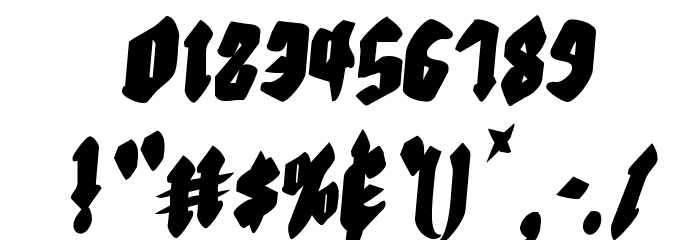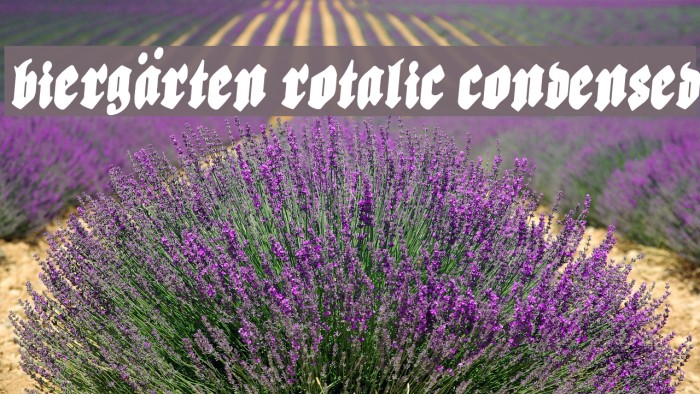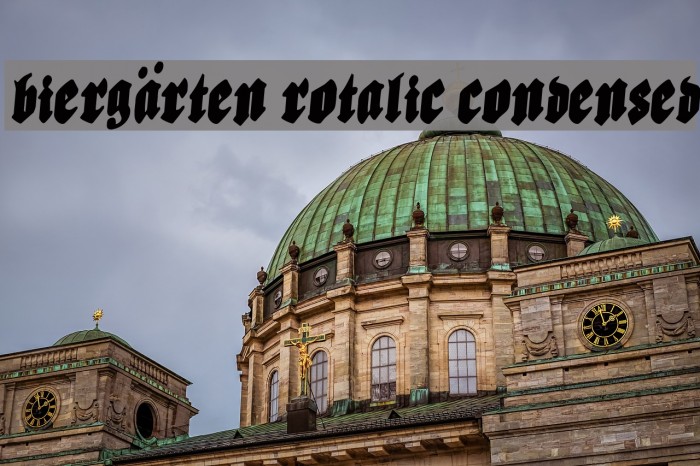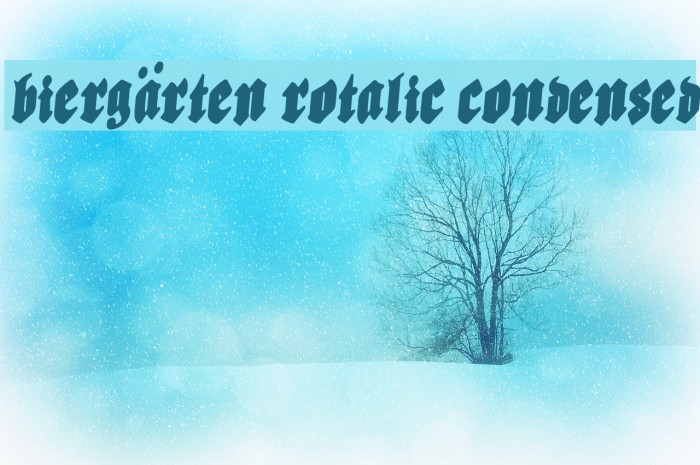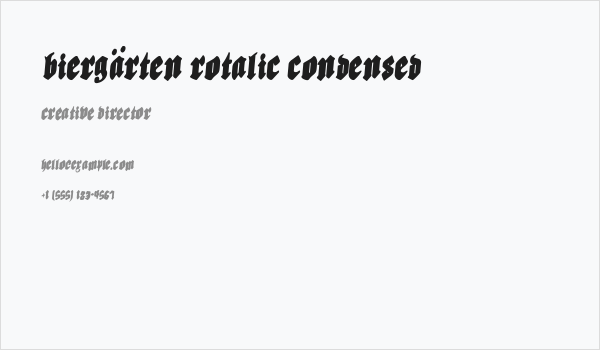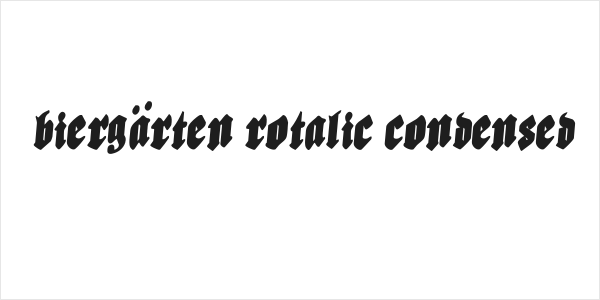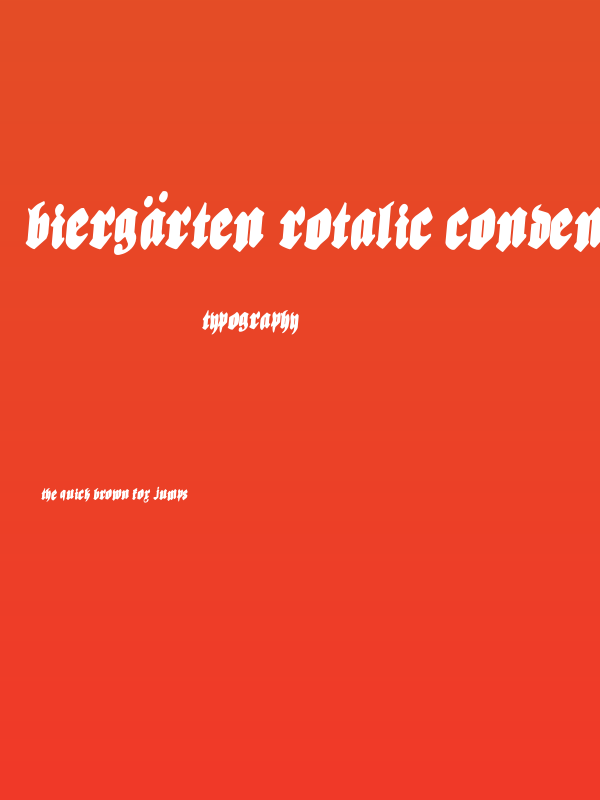
Biergärten Rotalic Condensed Font
Biergärten Rotalic Condensed Description
This font features a bold, blackletter style with a condensed width, giving it a dramatic and impactful appearance. The characters are intricately designed with sharp, angular strokes and a slight slant, adding a sense of movement and elegance. The uppercase and lowercase letters maintain a consistent style, with ornate details that enhance the overall aesthetic. The numbers and special characters are equally stylized, ensuring a cohesive look across all text elements. This font's unique design is reminiscent of traditional Gothic scripts, making it suitable for projects that require a historical or medieval touch.